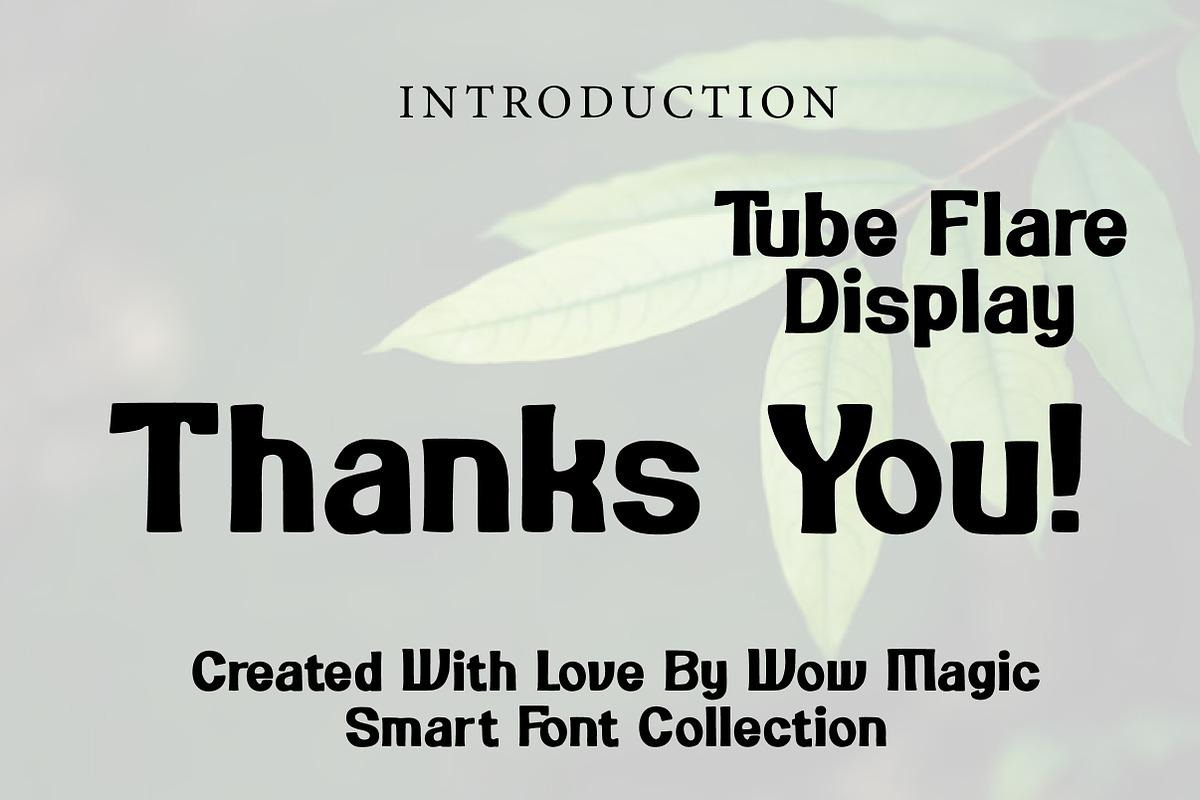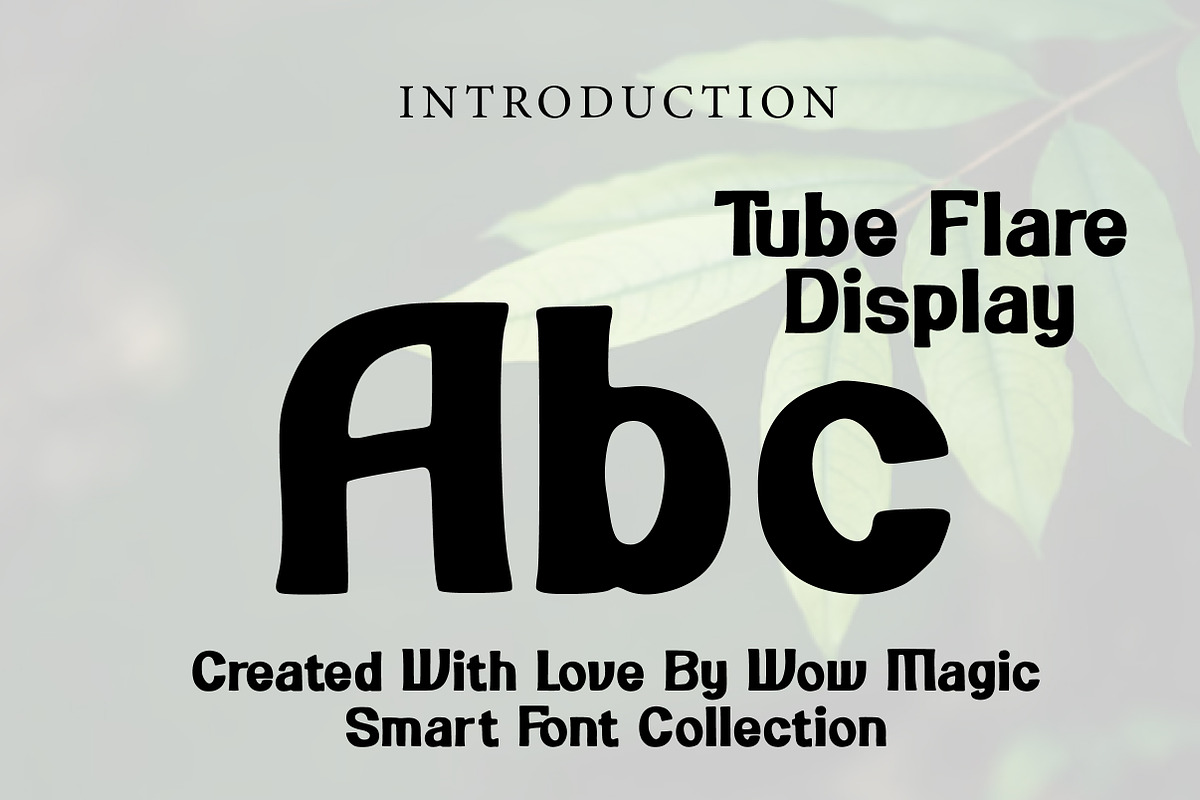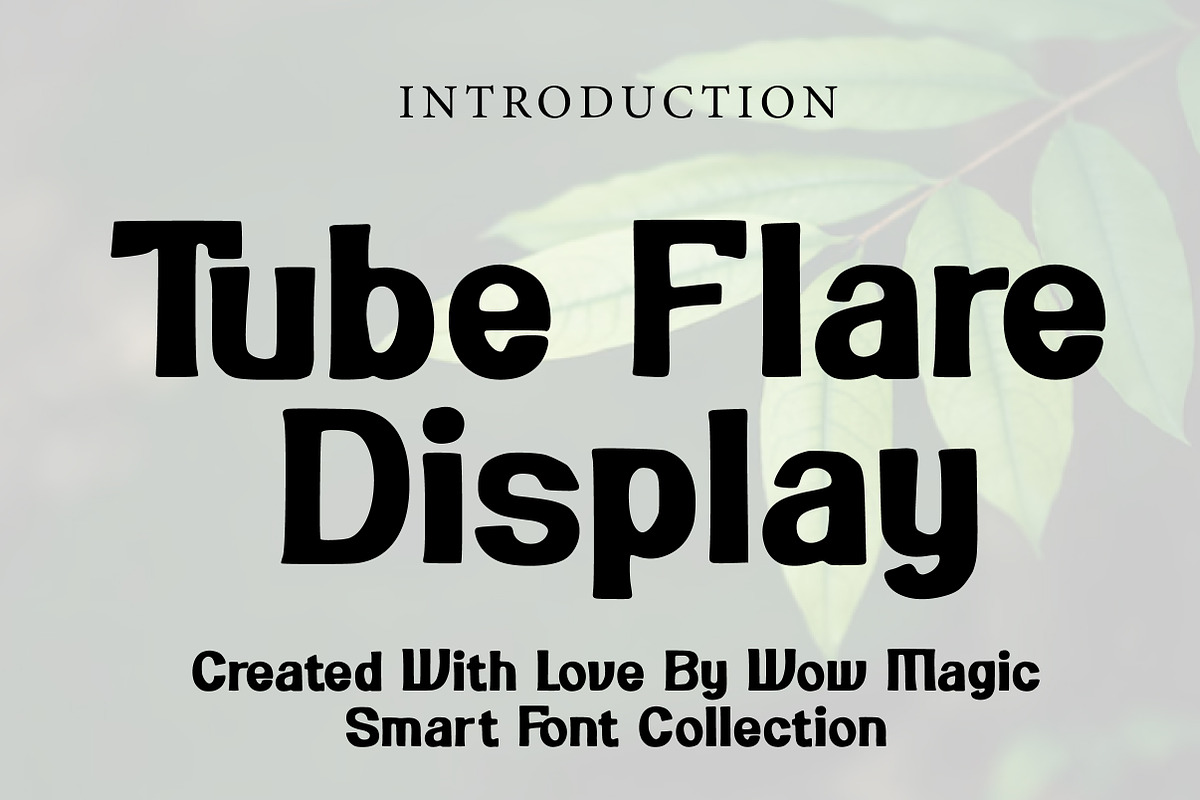
Tube Flare Display
Tube Flare Display is a bold retro-inspired display font with soft rounded edges, thick strokes, and a playful handcrafted presence. Its strong letterforms and slightly condensed structure create a confident visual impact while keeping a friendly and approachable personality.
The smooth curves and chunky shapes give this typeface a nostalgic yet modern appeal, making it perfect for branding, posters, packaging, logos, headlines, social media graphics, and product-focused designs. It carries a warm vintage energy while remaining versatile enough for contemporary creative projects.
Tube Flare Display is ideal for designers who want a font that feels bold, charming, and highly readable. Whether you are building a retro brand identity or creating eye-catching display text, this font adds a distinctive and stylish character to your work.